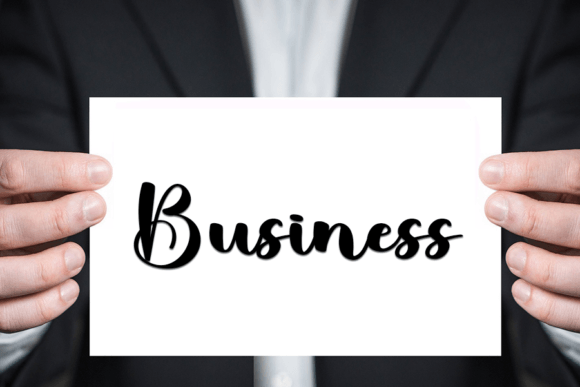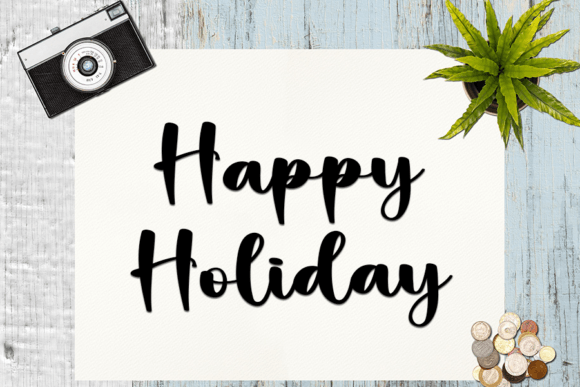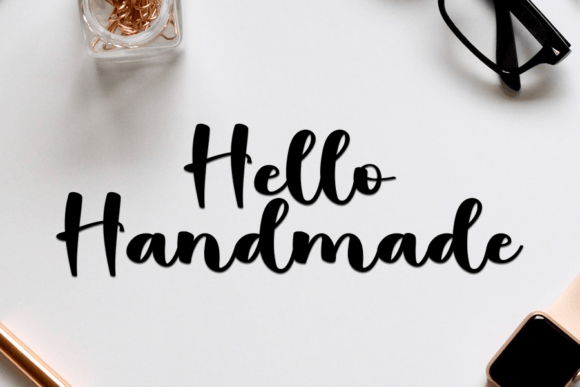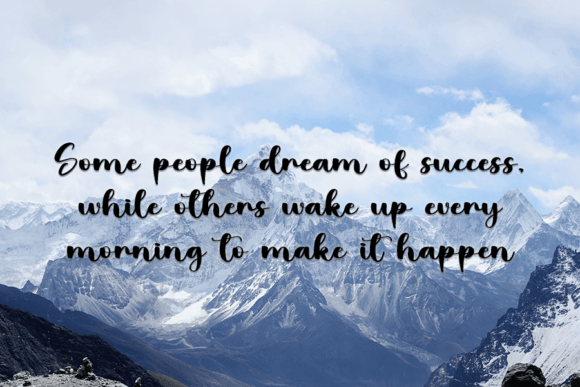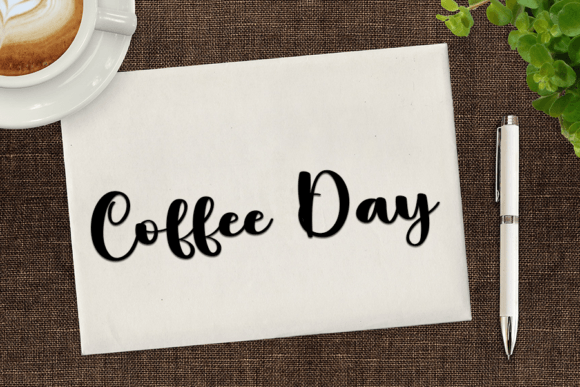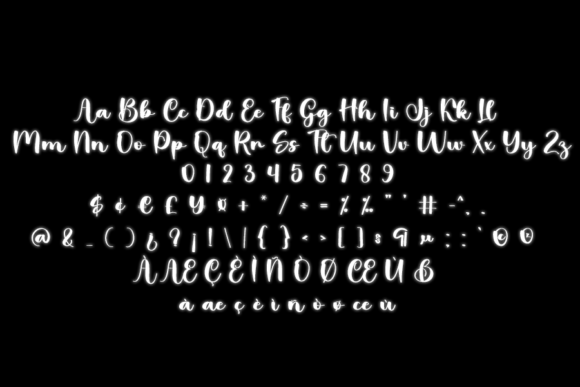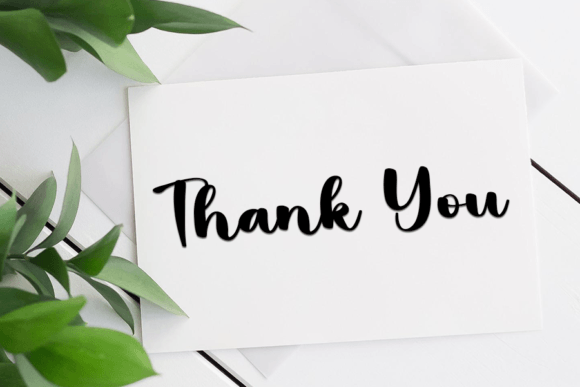
Break Font
About Break Font
**Elevate Your Designs with the Delicate “Break” Handwritten Font**
Unleash your creativity and give your designs a cool and unique edge with the “Break” handwritten font. This meticulously crafted typeface is perfect for adding a touch of sophistication to various design projects. Here’s how “Break” can enhance your creative work:
1. **Delicate Craftsmanship:** “Break” boasts delicate craftsmanship, with each character carefully designed to exude a refined and artistic quality. It’s an excellent choice for projects that demand a touch of elegance.
2. **Cool and Unique Design:** The distinctive style of “Break” sets it apart from conventional fonts. Its cool and unique design adds an element of intrigue and creativity to your work, making it visually captivating.
3. **Versatile Application:** “Break” is incredibly versatile and suitable for various design contexts. Whether you’re crafting letters, invitations, food product labels, titles, or any other creative project, this font adapts effortlessly to your needs.
4. **Unique Visual Identity:** If you’re looking to establish a unique visual identity for your brand or project, “Break” can be a valuable asset. Its distinctiveness helps your design stand out and leave a lasting impression.
5. **Artistic Appeal:** This font’s artistic appeal makes it well-suited for projects that require a touch of creativity and flair. Use it to express your artistic side and add a layer of sophistication to your designs.
6. **Readable and Stylish:** While “Break” exudes artistic charm, it remains highly readable. You won’t sacrifice legibility for style, ensuring that your message comes across clearly and beautifully.
7. **Personal Touch:** Incorporate “Break” into your designs to add a personal touch. It creates a sense of connection and authenticity that resonates with viewers.
8. **Food and Beverage Branding:** If you’re working on branding for food products or beverage labels, “Break” can lend an elegant and appetizing quality to your packaging and marketing materials.
9. **Invitations with Flair:** Craft invitations that make a statement with “Break.” Whether it’s for weddings, parties, or special events, this font adds an air of sophistication to your invitation designs.
10. **Creative Titles:** Make your titles and headings pop with “Break.” Its cool and unique design transforms ordinary titles into eye-catching features that draw attention.
“Break” is your go-to font when you want to infuse your designs with delicate elegance and a touch of creativity. Its versatility, readability, and unique style make it an invaluable tool for enhancing your design projects, leaving a lasting impression on your audience.